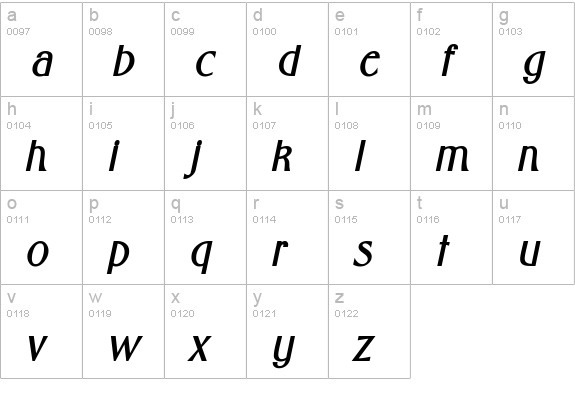
CapatolaSSK BoldItalic Font Details
CapatolaSSK BoldItalic is a stylish and modern font that exudes a sense of sophistication and elegance. With its bold and italicized design, this typeface is perfect for creating eye-catching headlines, titles, and logos that demand attention. The sleek curves and sharp angles of CapatolaSSK BoldItalic give it a unique and dynamic look that sets it apart from other fonts. One of the best things about CapatolaSSK BoldItalic is that it is available for free download at FontsMarket.com. This means that you can easily access and use this stunning font for all your creative projects without having to worry about any costs. Whether you are designing a website, crafting marketing materials, or working on a personal project, CapatolaSSK BoldItalic will add a touch of elegance and style to your work. Don't miss out on the opportunity to enhance your designs with the captivating beauty of CapatolaSSK BoldItalic. Download this font for free today and let your creativity soar to new heights!